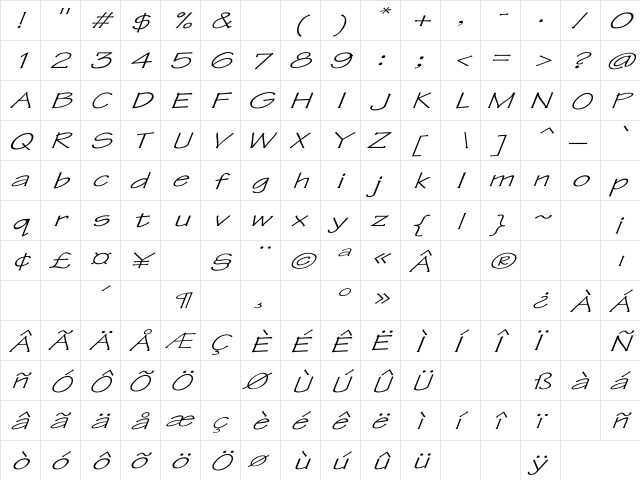
Tekton Ex italic Italic
Design Context for Tekton Ex italic Typeface
Tekton Ex italic is a composed and adaptable typeface that performs quietly and consistently across a wide range of design contexts. Its italic angle brings a sense of urgency and motion to the letterforms.
Pro Tip: Try Tekton Ex italic for annotation and caption copy alongside an upright companion — the contrast in angle creates a dynamic but ordered typographic system.